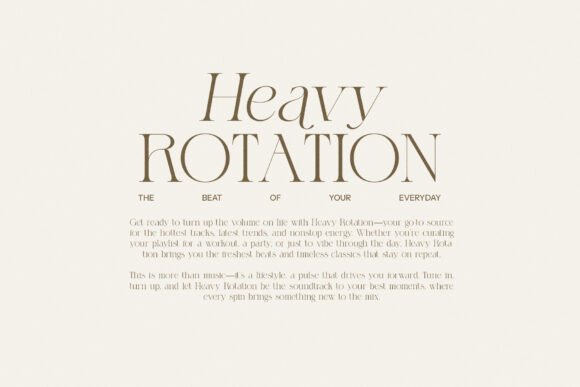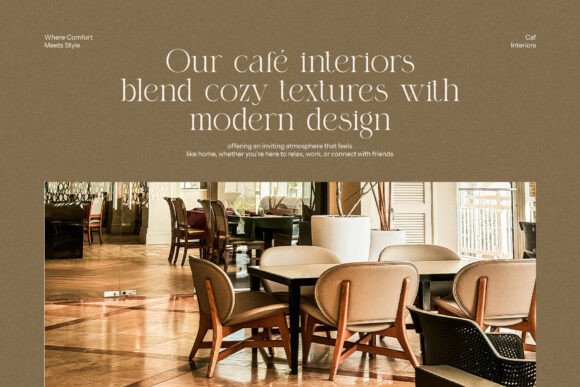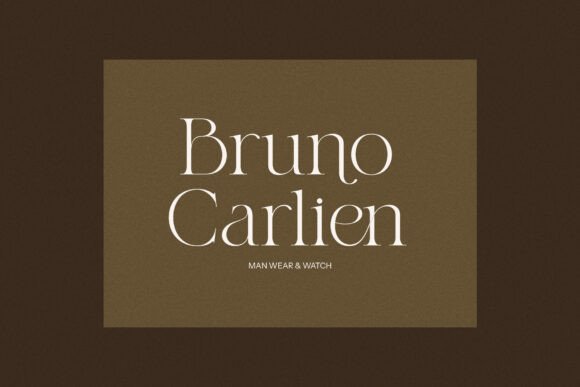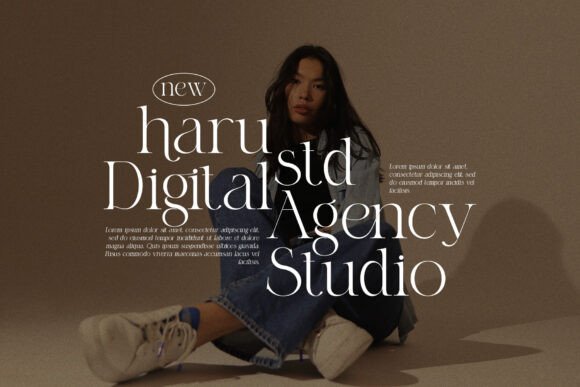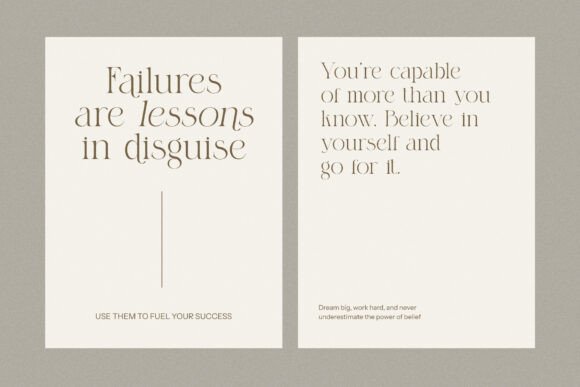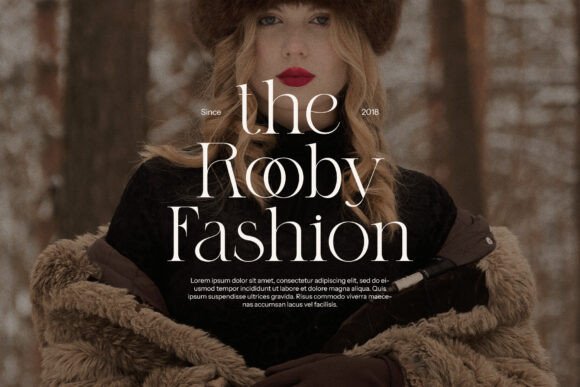
Discover the Elegance of Engko Font: A Modern Serif Typeface for Stunning Designs
In the world of typography, a good font can make all the difference in creating a visually appealing design. For designers and crafters looking for a modern serif typeface that exudes sophistication and charm, the Engko Font is an excellent choice. This beautiful font offers a fashionable touch, making it perfect for a wide range of design projects, from beauty designs and elegant crafting to layout designs, ad branding, and design templates.
The Characteristics of Engko Typeface
So, what makes Engko Font stand out from other typefaces? One of its most notable features is the delicate curves that bring an elegant style to any design. The classy ligature is another characteristic that appeals to designers and crafters alike. With calligraphic influences, this font gives a contemporary feeling that’s hard to resist. The strokes are smooth, and the line thickness plays a significant role in creating a sophisticated look that’s perfect for designs that require a touch of luxury.
Whether you’re working on a personal or commercial project, the Engko Typeface is versatile enough to meet your needs. Its modern and beautiful design makes it an excellent choice for:
• Beauty designs: Create stunning beauty-related designs, such as makeup tutorials, skincare product branding, or fashion magazine layouts.
• Elegant crafting: Add a touch of sophistication to your crafting projects, such as handmade cards, invitations, or gift tags.
• Layout designs: Use Engko Font to create visually appealing layouts for brochures, flyers, or posters.
• Ad branding: Give your brand a professional look with this elegant font, perfect for logos, business cards, or letterheads.
• Design templates: Create stunning design templates for social media, presentations, or reports.
Why Choose Engko Typeface?
There are many reasons why Engko Font should be your go-to typeface for your next design project:
• Unique and elegant design: The Engko Typeface offers a fresh and modern look that will set your designs apart from the rest.
• Versatility: Use it for personal or commercial projects, and across various design applications.
• Easy to read: The smooth strokes and delicate curves ensure that your text is easy to read, even at small sizes.
• High-quality design: The Engko Typeface is designed with high-quality craftsmanship, ensuring a professional finish.
Take Your Designs to the Next Level
If you’re looking to elevate your graphic design projects to the highest level, the Engko Typeface is an excellent choice. Its sophisticated look and elegant style will add a touch of luxury to your designs, making them stand out from the crowd. Whether you’re a designer, crafter, or DIY enthusiast, this font is sure to become a favorite in your collection.
In conclusion, the Engko Font is a modern serif typeface that offers a fashionable touch, making it perfect for a wide range of design projects. Its delicate curves, classy ligature, and calligraphic influences bring an elegant style that’s hard to resist. With its versatility, ease of use, and high-quality design, this font is sure to become a staple in your design toolkit.